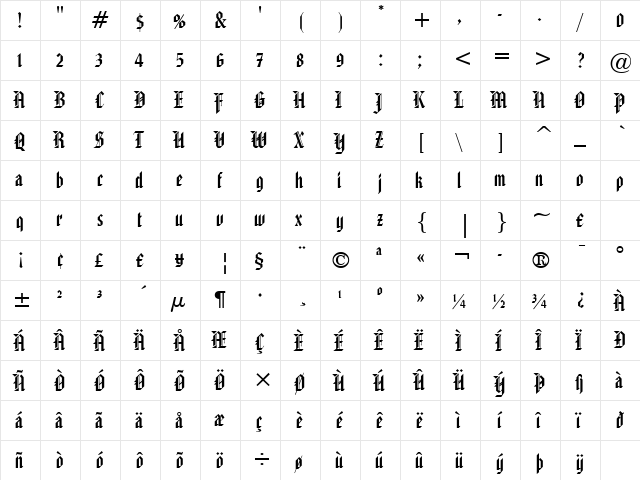
UVN Hoa Ky Regular Font Preview
UVN Hoa Ky Regular
Design Context for UVN Hoa Ky Typeface
UVN Hoa Ky is a composed and adaptable typeface that performs quietly and consistently across a wide range of design contexts.